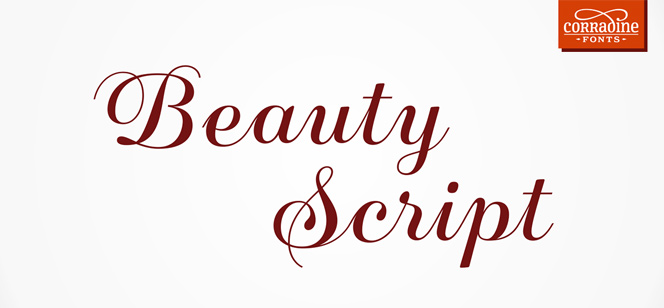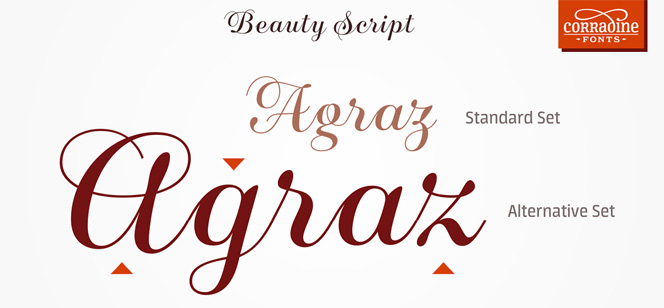
Beauty Script
Beauty Script is a contemporary interpretation of classic formal script. Smooth curves, elegant but prominent look, feminine and emotional but strong in its presence – these are the words that describe Beauty Script best. Unlike many of the script fonts released thru the years this one is very easy-to-read without losing its temper and originality. More generous than usual in spacing between letters, Beauty Script uses elegant connections forming calm and balanced rhythm – combined with higher contrast and wider apertures it becomes a typeface with enhanced legibility equally useful for both print and screen use. Speaking of using Beauty Script – it is perfect choice for cosmetics, fashion, beauty, nature, food – wherever you need to express elegance with letters.
Designers: Juan Sebastian Rincon, Manuel Eduardo Corradine
Publisher: Corradine Fonts